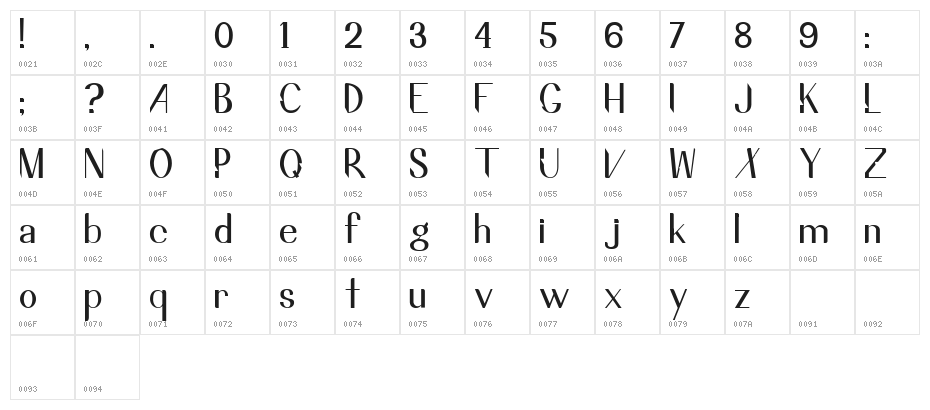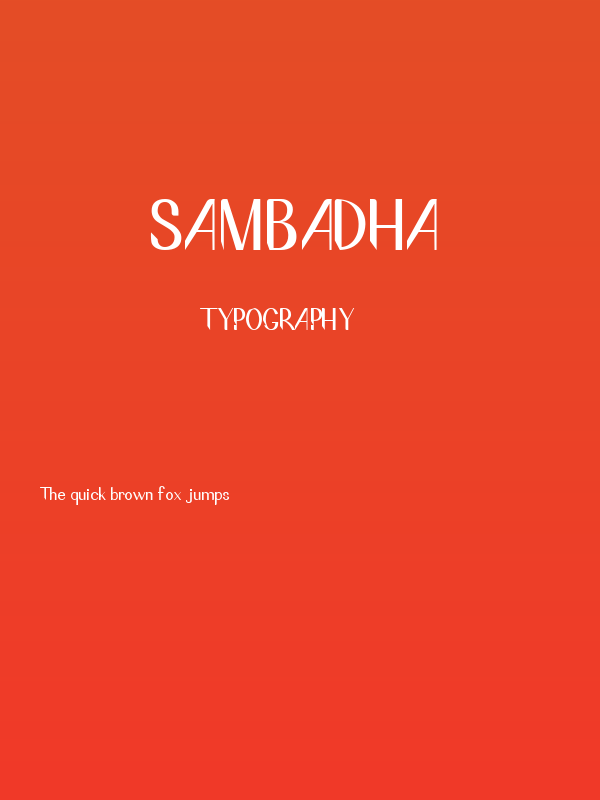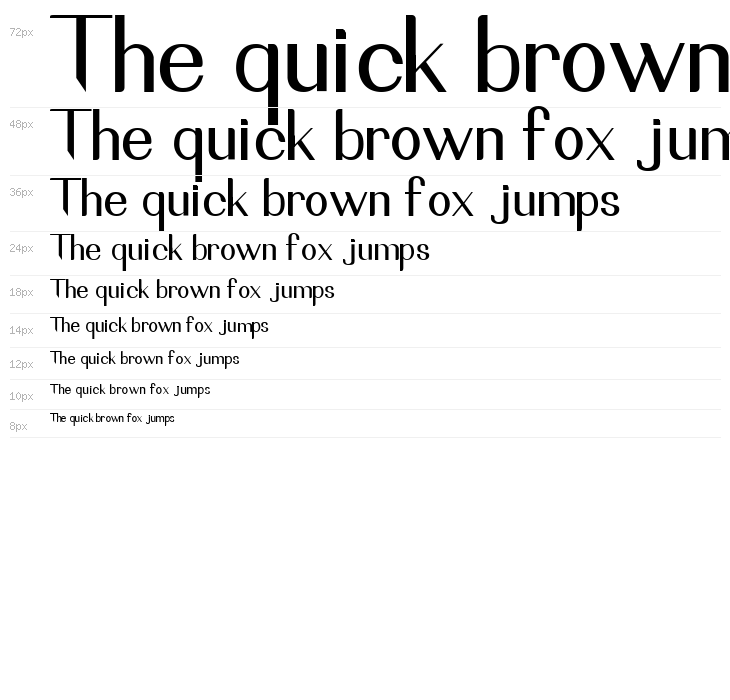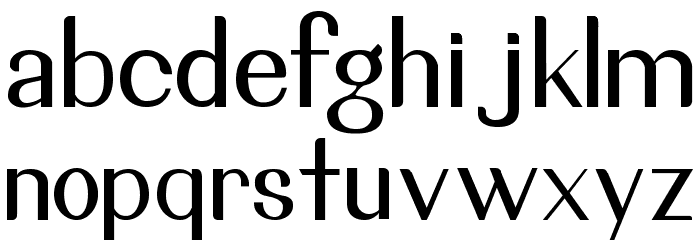
Sambadha Font
Sambadha Description
This font exhibits a unique blend of geometric and modern design elements. The uppercase letters feature sharp angles and distinct cuts, giving them a dynamic and edgy appearance. The lowercase letters maintain a more rounded and smooth form, providing a nice contrast to the uppercase set. The numerals are bold and clear, ensuring readability. Special characters are designed with the same attention to detail, making them stand out. The overall style is contemporary, with a hint of avant-garde, making it suitable for creative and innovative projects.
| Proposed Projects | Ideal for branding, advertising, and editorial design where a modern and distinctive look is desired. |